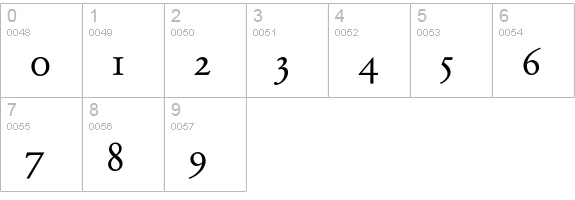
Garamond ExpBQ RegularOsF Font Details
Garamond ExpBQ RegularOsF font is a beautiful typeface that exudes elegance and sophistication. Its timeless design and classic proportions make it a perfect choice for any project that requires a touch of refinement. With its delicate and graceful curves, Garamond ExpBQ RegularOsF font captures the essence of traditional typography while still feeling fresh and modern. This font is available in a regular weight, ensuring versatility and ease of use across various design applications. Whether it's for print or digital media, Garamond ExpBQ RegularOsF font will make your text stand out with its clean and legible appearance. One of the best things about Garamond ExpBQ RegularOsF font is that it is freely available to download at FontsMarket.com. This means that you can access this exquisite typeface without any cost, making it a fantastic opportunity for designers, typographers, and creatives alike. In addition to its aesthetic appeal, Garamond ExpBQ RegularOsF font also offers exceptional readability, ensuring that your message is conveyed clearly and effectively. Its well-balanced letterforms and generous spacing contribute to an enjoyable reading experience for your audience. So, whether you're working on a branding project, a book layout, or a website design, Garamond ExpBQ RegularOsF font is a versatile and stylish choice that will elevate your work to new heights. Don't miss the chance to enhance your designs with this amazing font - simply head over to FontsMarket.com and download Garamond ExpBQ RegularOsF font for free.